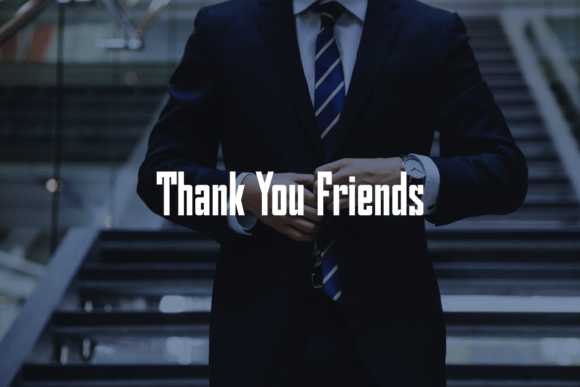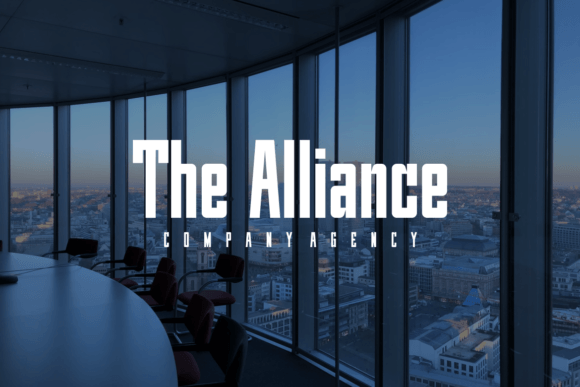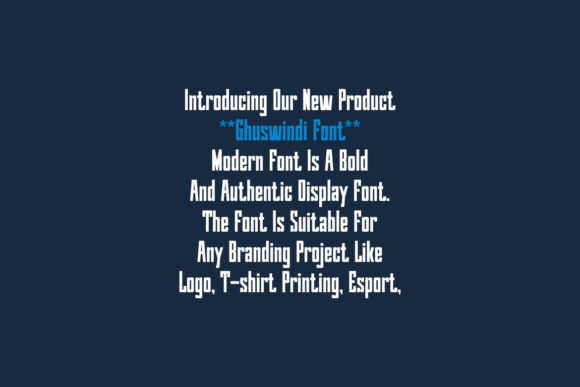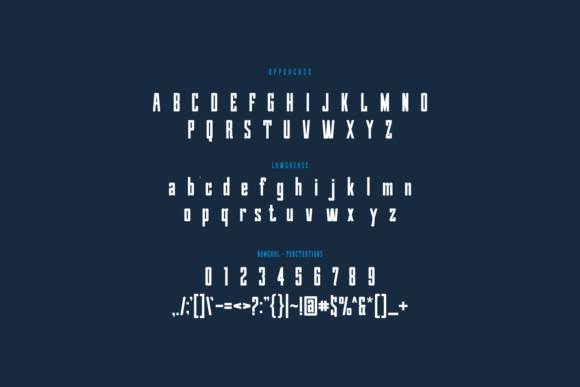
Introducing Ghuswindi Font: The Modern Display Font You Need
Have you ever been in the middle of a design project, and suddenly, you’re stuck on finding the perfect font? I recall a recent experience where I was working on a logo design for an esports team, and I just couldn’t find a font that conveyed the right amount of boldness and modernity. That’s when I discovered **Ghuswindi Font**, a game-changing display font that has become a staple in my design toolkit.
A Personal Encounter with Ghuswindi Font
As a designer, I’m always on the lookout for fonts that can help my clients stand out. When I first laid eyes on Ghuswindi Font, I knew I had found something special. Its bold and authentic style immediately caught my attention, and I couldn’t wait to put it to the test. In this article, I’ll share my experience with Ghuswindi Font, its features, and how to make the most of it in your designs.
What I Love About Ghuswindi Font
- ✨ Bold and Authentic Style: Ghuswindi Font boasts a unique, modern design that’s perfect for making a statement.
- ✅ Versatility: This font is suitable for a wide range of projects, from logos and esports branding to posters and social media graphics.
- 🔥 Attention-Grabbing: The bold design ensures that your text won’t go unnoticed, making it ideal for headlines and titles.
Honest Review: A Few Quirks to Consider
While Ghuswindi Font is an excellent addition to any design project, there are a few things to keep in mind:
- 🤔 Legibility at Small Sizes: Due to its bold design, Ghuswindi Font may not be the best choice for body text or small font sizes. It’s best used for headlines and titles.
- ⚠️ Limited OpenType Features: While Ghuswindi Font does offer some OpenType features, it may not have the extensive range of features you’d find in other fonts.
The Backstory of Ghuswindi Font
Ghuswindi Font was designed with the goal of creating a bold and modern display font that could be used in a variety of contexts. The designer drew inspiration from urban landscapes and cutting-edge technology, aiming to create a font that was both authentic and attention-grabbing.
| What is Ghuswindi Font best used for? | Ghuswindi Font is ideal for logos, esports branding, posters, and social media graphics where a bold and modern style is desired. |
| Can I use Ghuswindi Font for body text? | While possible, Ghuswindi Font is best used for headlines and titles due to its bold design. For body text, a more legible font may be more suitable. |
| Does Ghuswindi Font offer OpenType features? | Yes, Ghuswindi Font offers some OpenType features, including glyphs and stylistic alternates. |
In conclusion, Ghuswindi Font is a versatile and attention-grabbing display font that’s perfect for designers, crafters, and creative hobbyists looking to add a modern touch to their projects. With its bold and authentic style, Ghuswindi Font is sure to make a statement in any design.